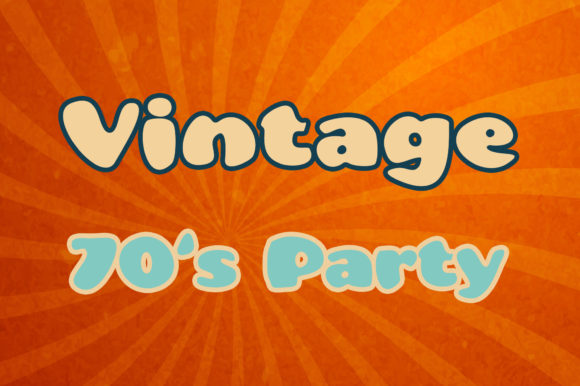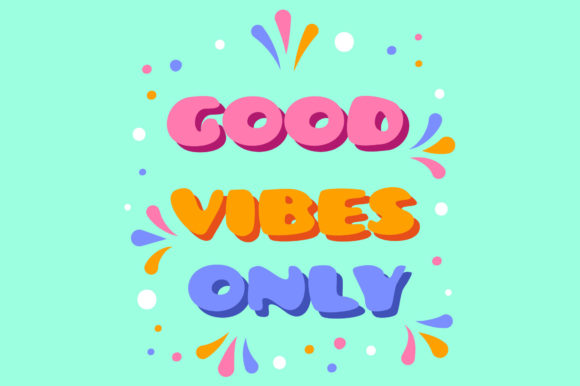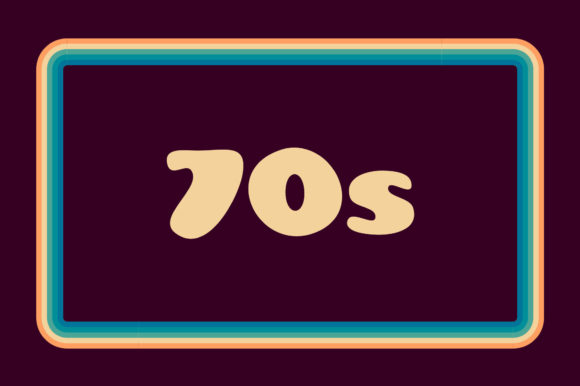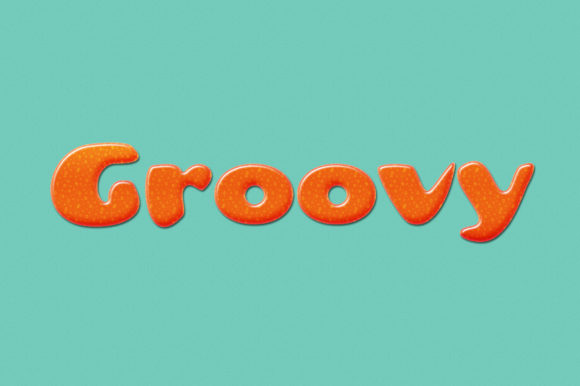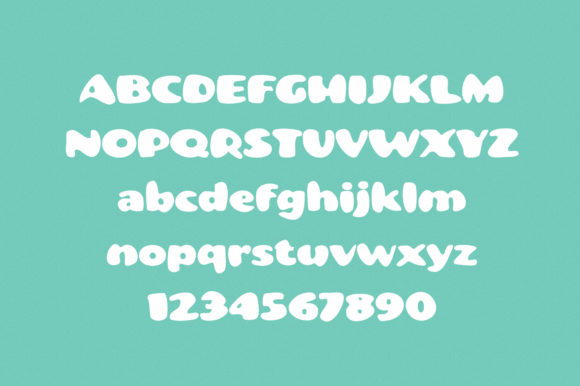
Getting Your Groove On with the Groovy Disco Font
Do you ever find yourself scrolling through social media, and suddenly a post catches your eye because of its unique, eye-catching design? That’s the power of a well-chosen font. It can elevate your creative project from ordinary to extraordinary, and make it stand out in a crowded digital landscape.
For designers, having a versatile and high-quality font like the Groovy Disco Font is a game-changer. This fun and bouncy display font is perfect for adding a touch of personality to your designs, and its transparent background makes it easy to layer over other elements. With the Groovy Disco Font, you’ll have a valuable design resource at your fingertips, waiting to take your creative projects to the next level.
Key Features of Groovy Disco Font
- Unique and vibrant design that captures the essence of a groovy disco era, perfect for creative projects and design resources.
- Comes with a transparent background, allowing for seamless integration with various design elements and backgrounds.
- Features a bold and eye-catching design, ideal for use in posters, flyers, and other promotional materials.
Honest Review: Groovy Disco Font
I recently came across the Groovy Disco Font and I must say it’s a fantastic addition to any designer’s arsenal. ✨ The font’s unique blend of 70s and 80s vibes is perfect for creating eye-catching headlines and titles for any creative project.
Here are some of the key benefits of the Groovy Disco Font:
- Unique and eye-catching design ✨
- High-quality design suitable for various settings
- Limited character set ⚠️
- May not be suitable for all design styles or themes
Overall, I’m impressed with the Groovy Disco Font and I would highly recommend it to designers looking for a unique and high-quality font for their creative project. With a little creativity, this font can help take your design to the next level.
The Groovy Disco Font is perfect for a variety of creative projects, including posters, flyers, social media graphics, and more. Its unique design makes it stand out from other fonts, and its transparent background allows for easy customization and layering.
Alternatives to Groovy Disco Font
Q: What is the recommended size for using the Groovy Disco Font in a design project?
The recommended size for using the Groovy Disco Font depends on the specific design requirements of your project. However, as a general guideline, we recommend using the font at a minimum size of 24 points for optimal legibility. This ensures that the font remains clear and readable, even in high-resolution designs.